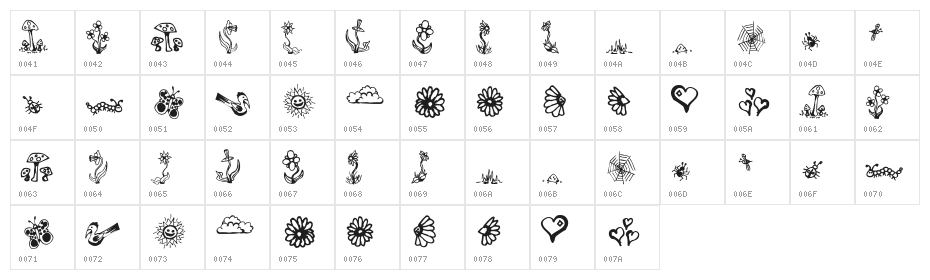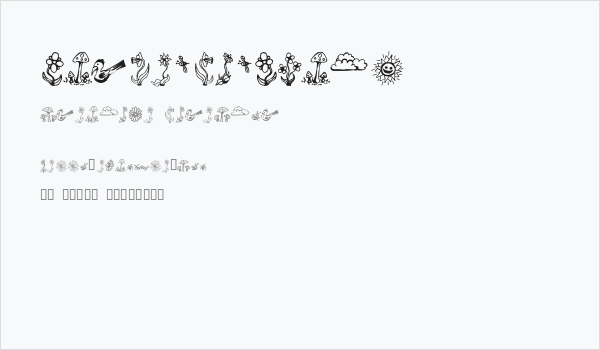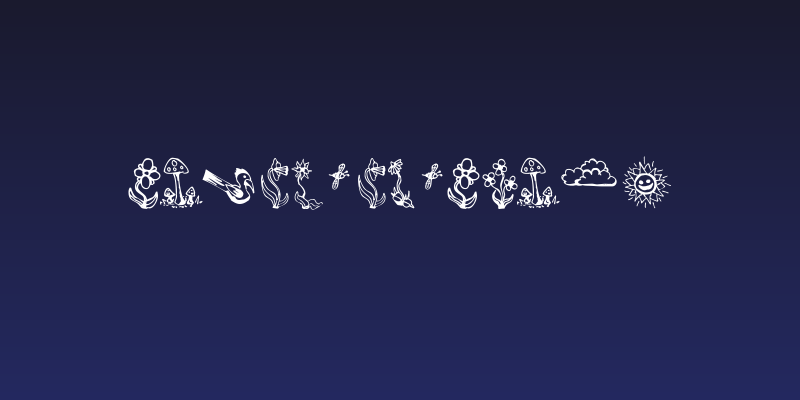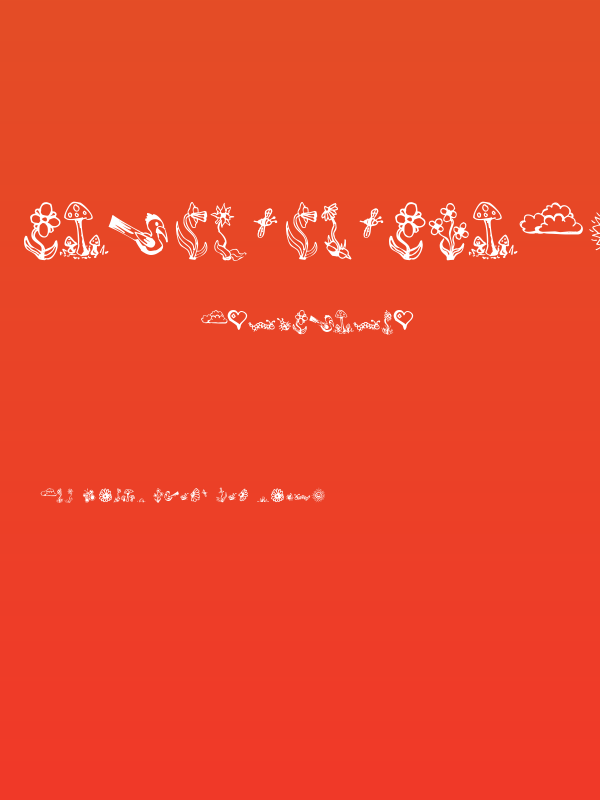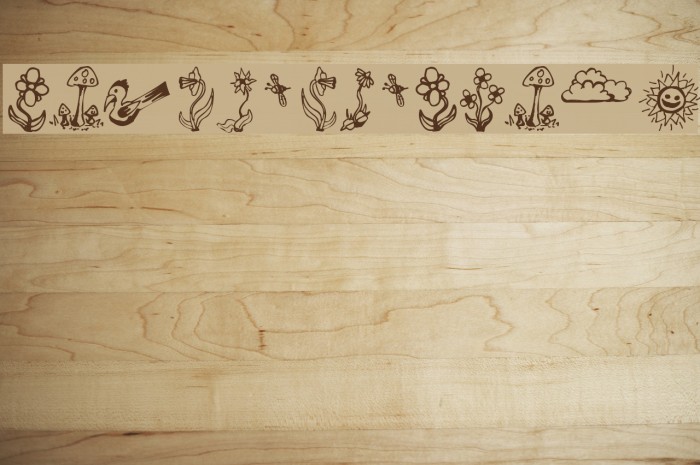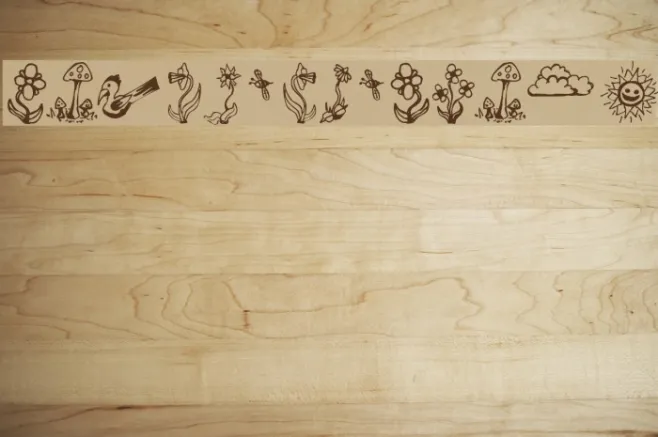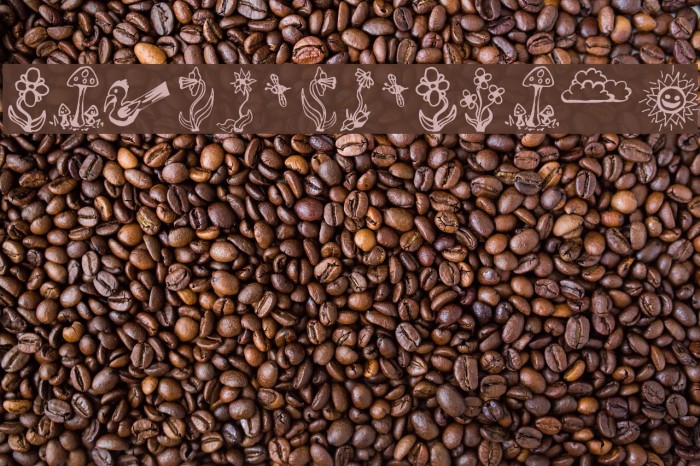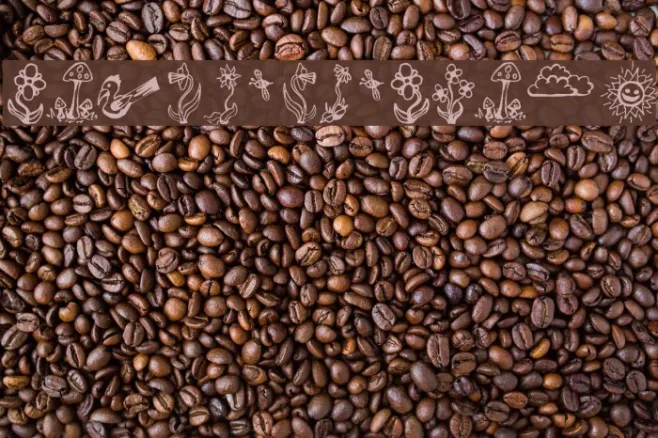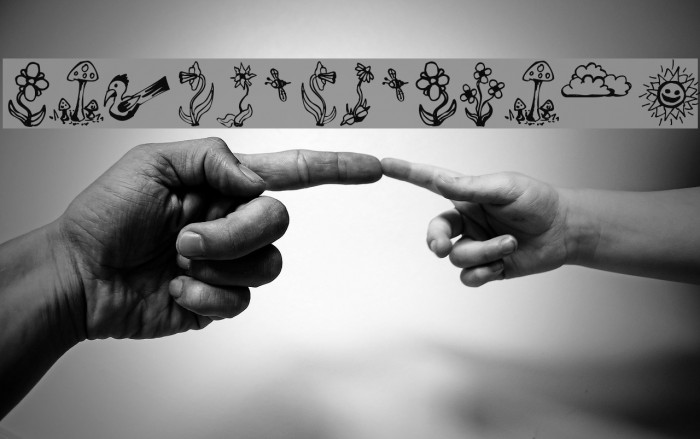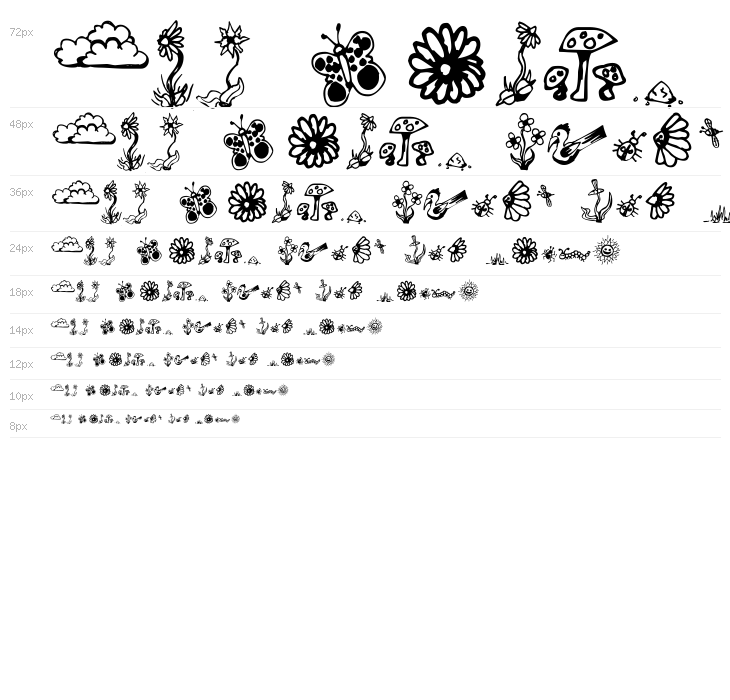
GardenDingbats Font
GardenDingbats Description
This collection features whimsical garden-themed dingbats, including charming illustrations of mushrooms, flowers, insects, and other nature-inspired elements. Each symbol is intricately designed with a playful and artistic flair, making them perfect for adding a touch of nature to any project. The designs are consistent in style, with a hand-drawn appearance that conveys a sense of creativity and fun. These dingbats are ideal for use in decorative projects, scrapbooking, or any creative endeavor that requires a nature-inspired theme. The symbols are clear and distinct, ensuring they stand out in any design context.
| Use Case | Decorative elements, Scrapbooking, Greeting cards |
| Proposed Projects | Ideal for scrapbooking, greeting cards, nature-themed designs, and decorative projects. |